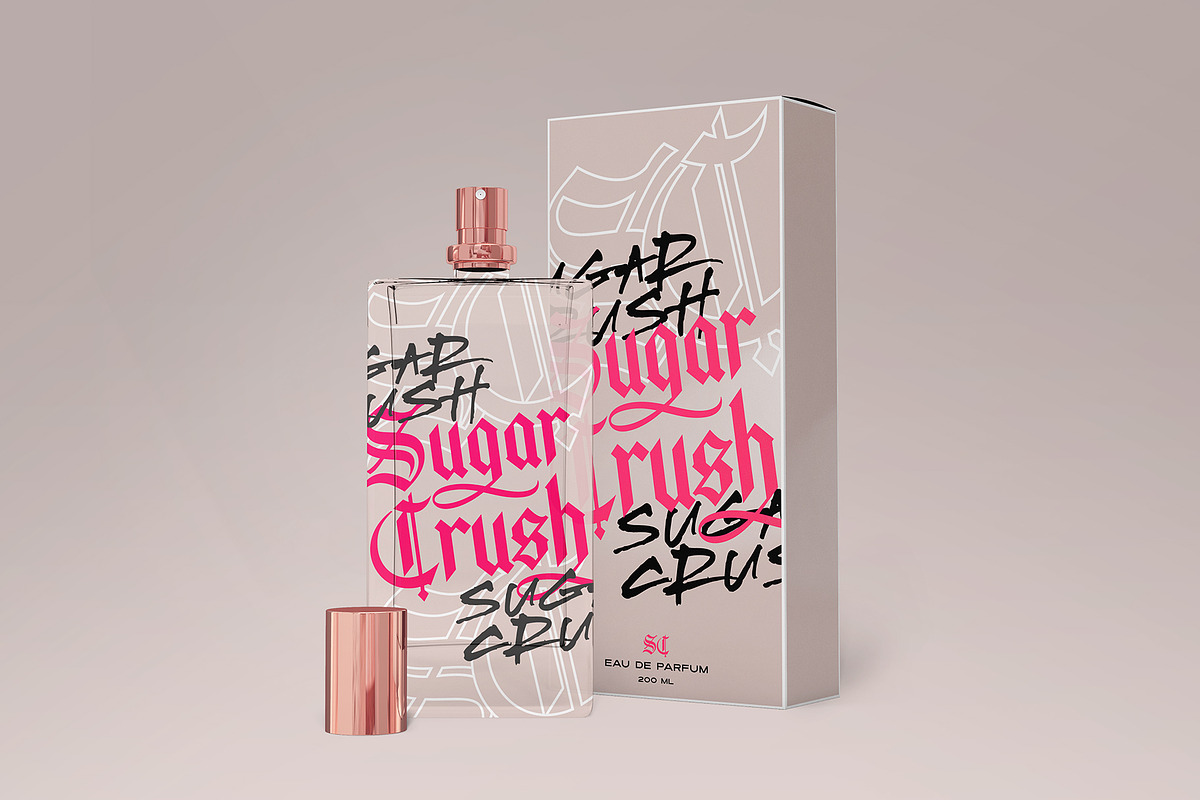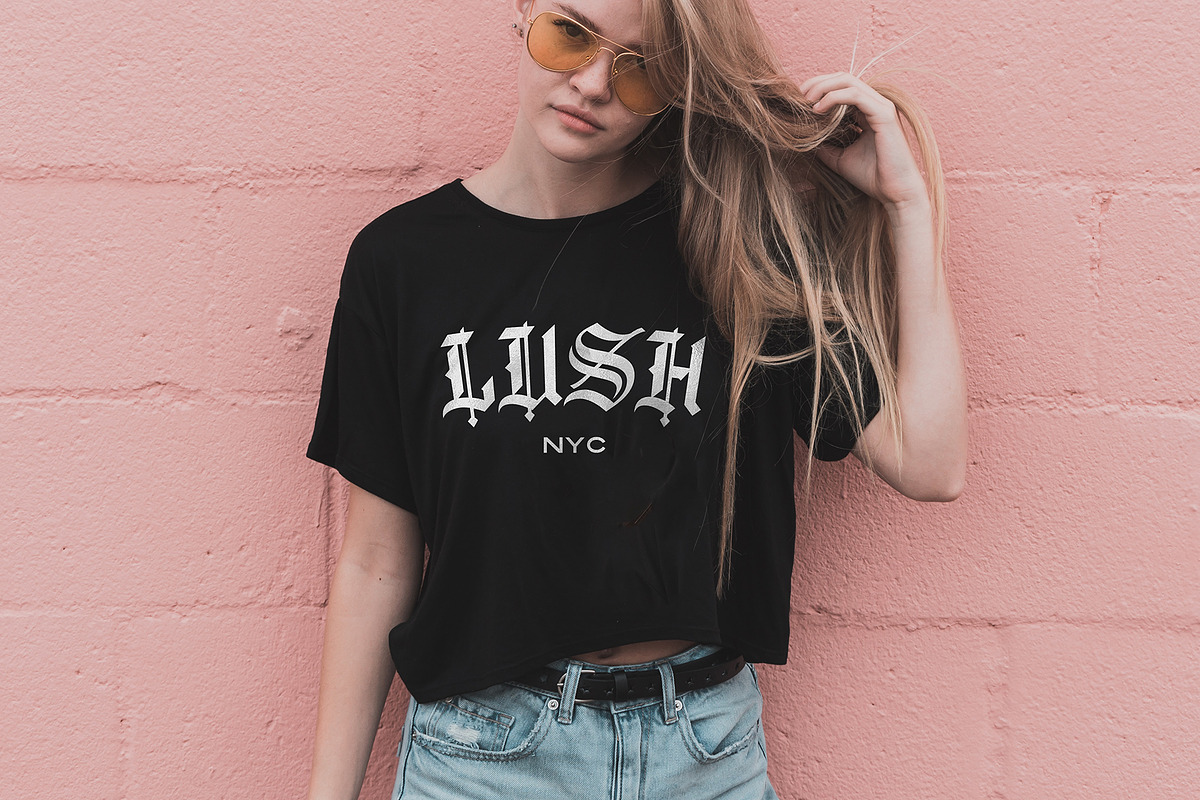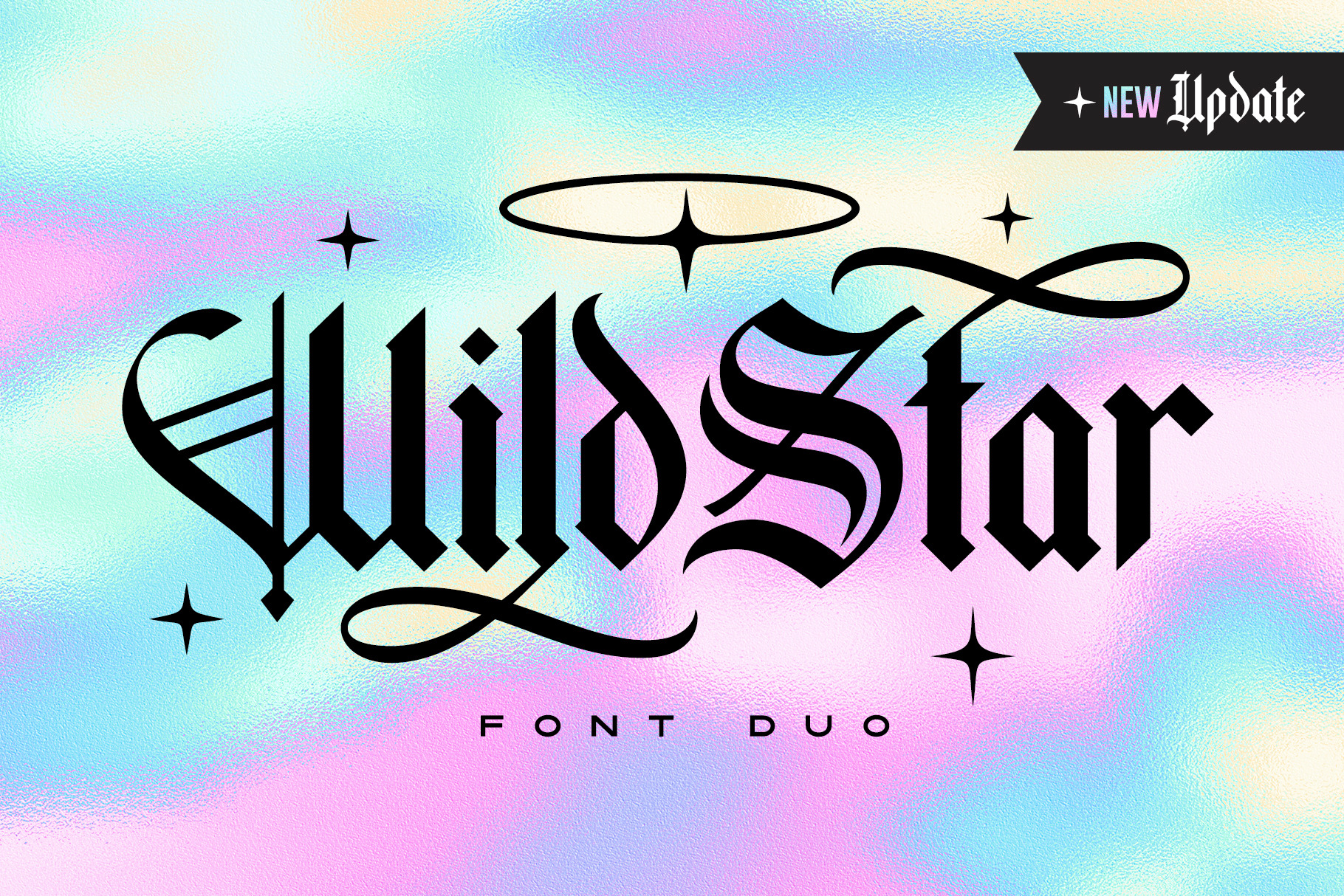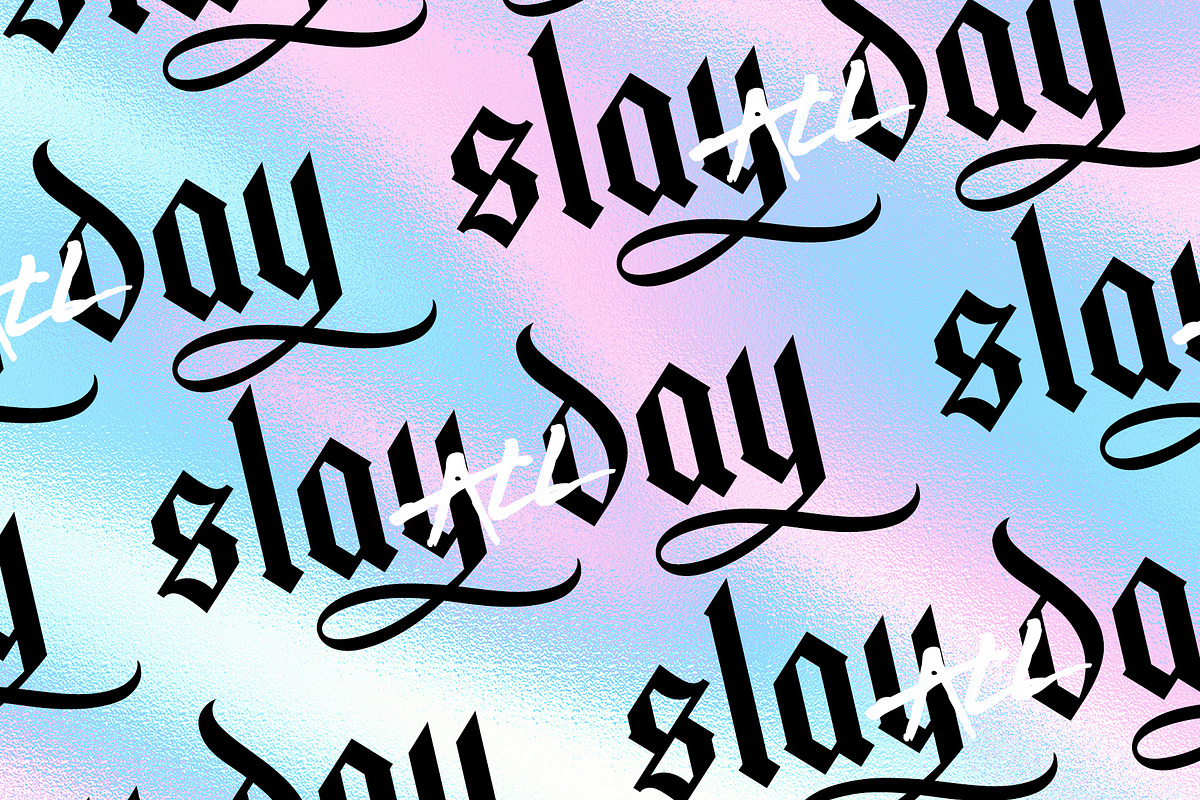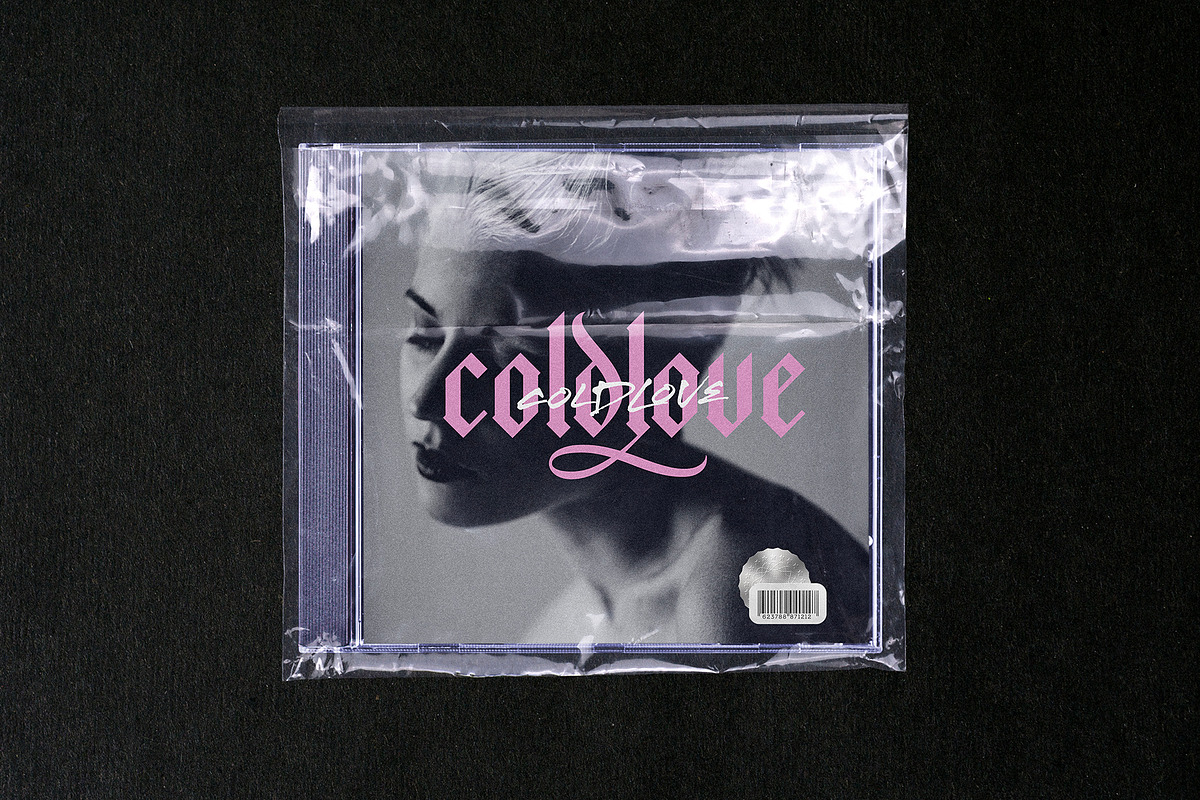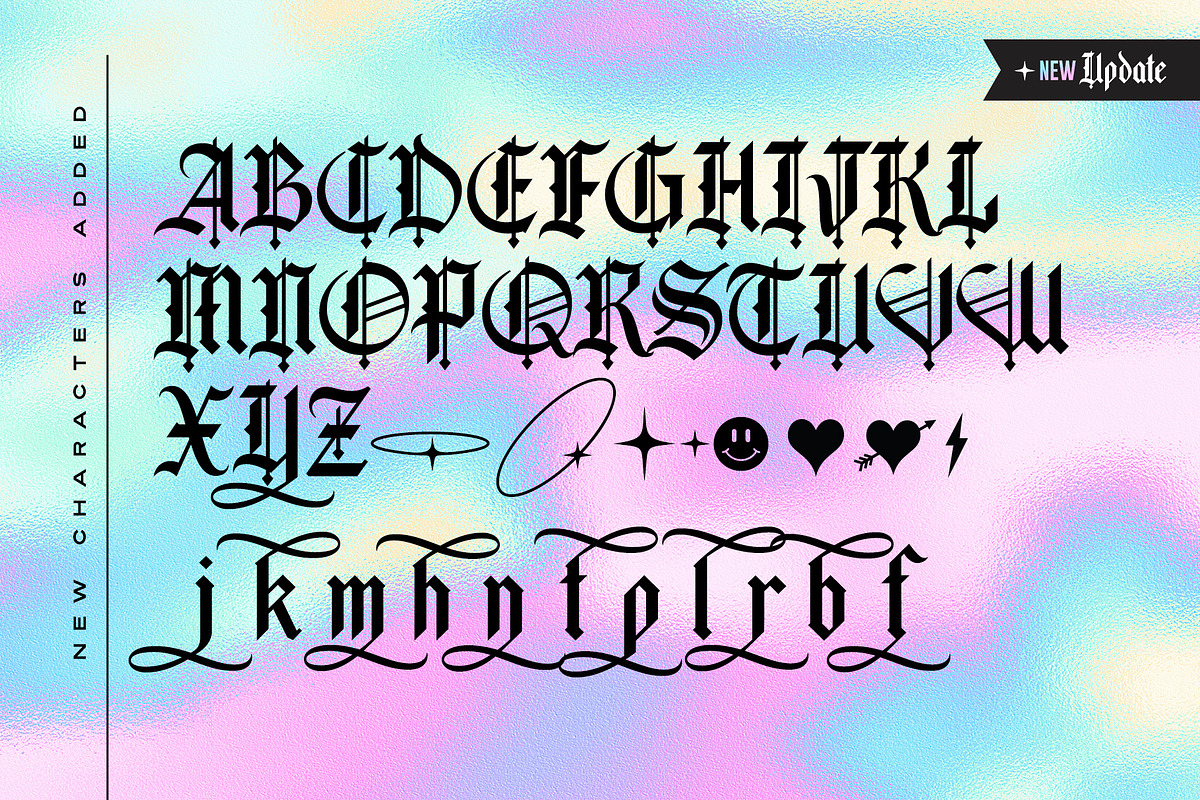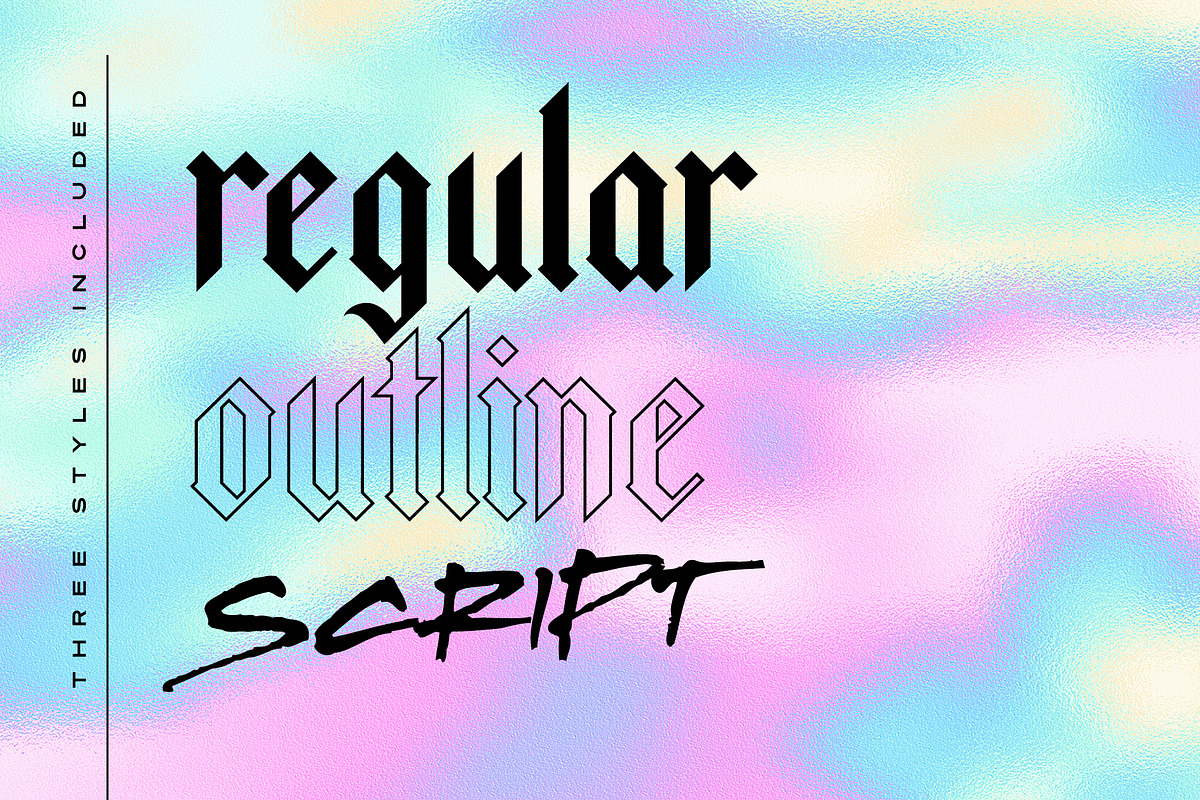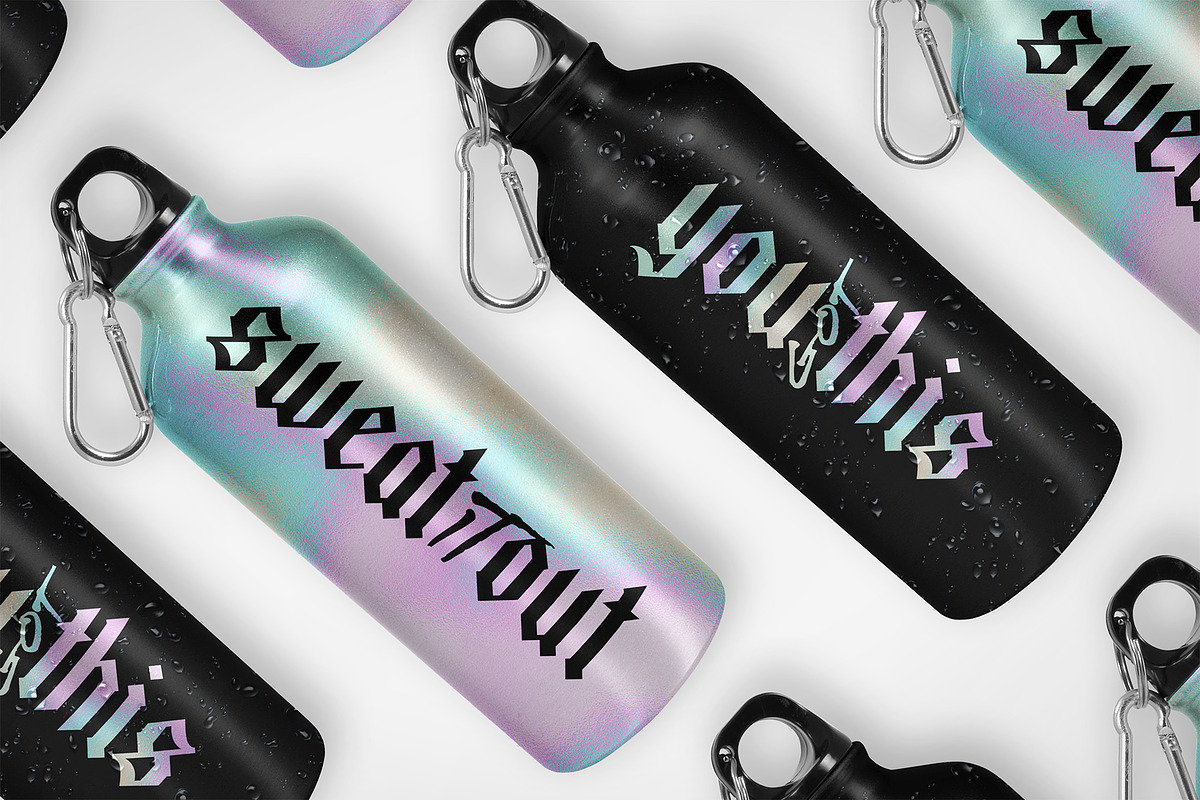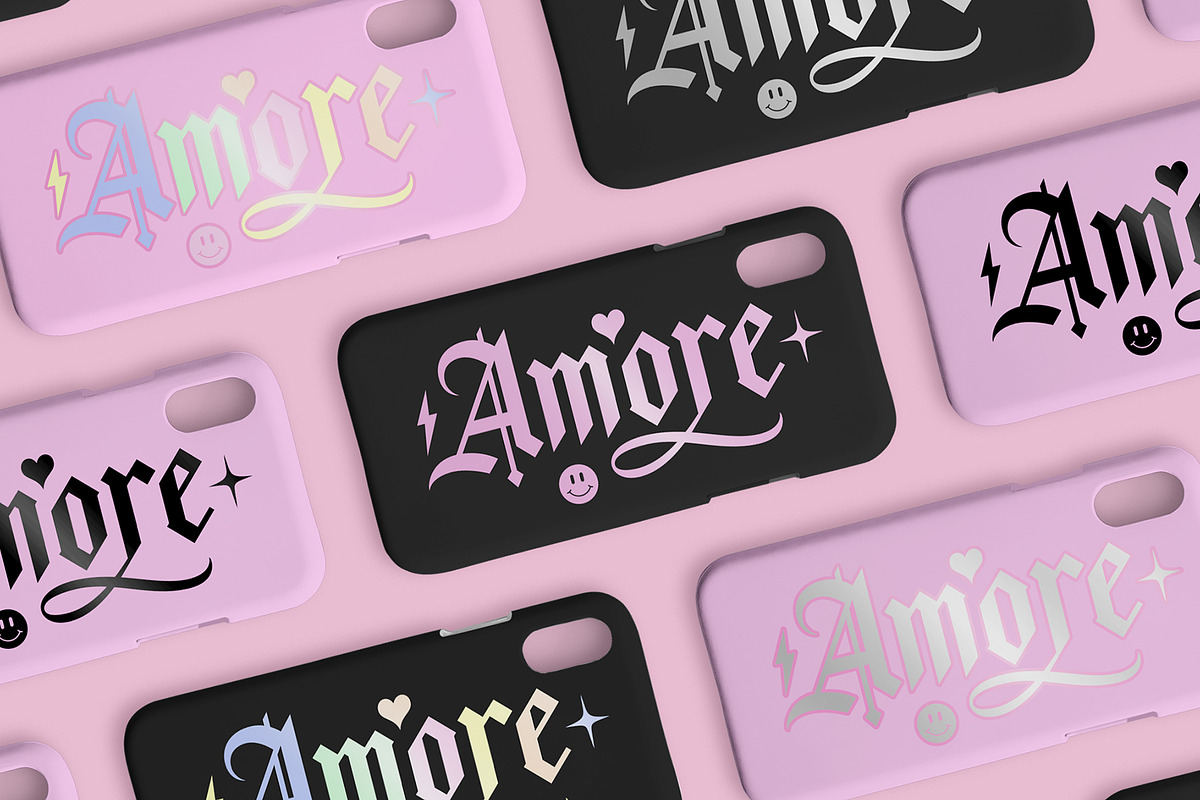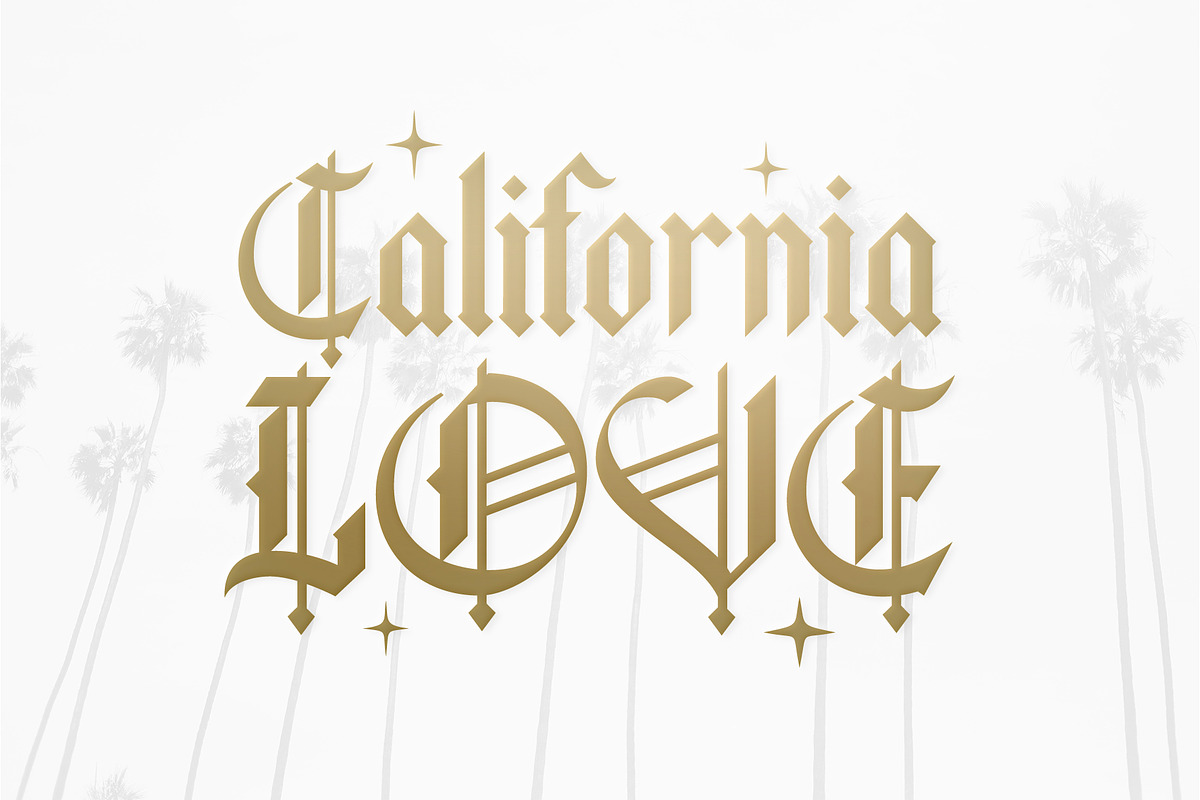
Wild Star Font Duo (New Update!)
🔥 NEW UPDATE - Uppercase characters are now included for the Wild Star blackletter font. Along with 11 new 'flourished' lowercase characters, and 8 new fun icons - that's 45 new glyphs in total!
Wild Star is a font duo not to be tamed - this pairing of modern blackletter font & unrestrained script font aren't afraid to make your message heard loud & clear. It's a bold choice for merchandise, album artwork, logo designs, quotes & more.
Wild Star • A modern blackletter font containing upper and lowercase characters, plus numerals and a full range of punctuation. There are 17 alternate stylistic versions for letters g, l, y, p, k, f, h, n, t, m, b, r, h, j which contain a bottom or top flourish. To access these, simply turn on 'Stylistic Alternates', or access them via a Glyphs panel. Type the following characters to generate one of 8 fun icons { } [ ] ( ) . (The standard versions of these characters can be found in the Glyphs panel).
Wild Star Outline • A second version of the Wild Star font with an outline effect added.
Wild Star Script • A rough, hand-scratched font containing 2 sets of uppercase characters, numerals and a full set of punctuation. Simply turn your caps lock on & off to switch between the 2 sets of characters.